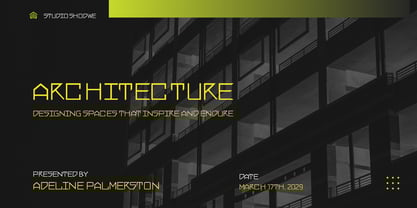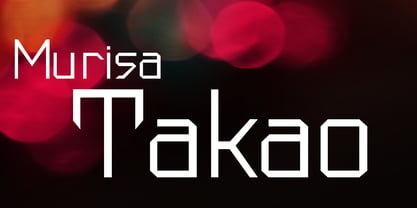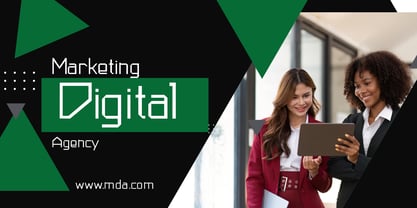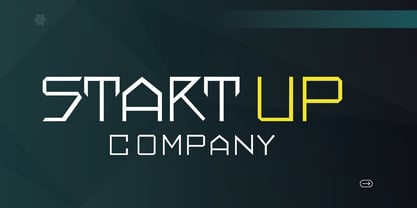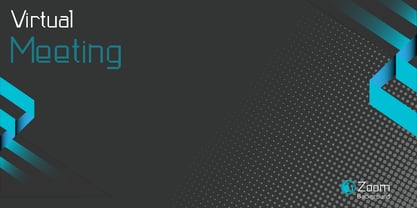
Murisa Takao
The Murisa Takao Font Family was designed by Lili Sadili and published by Murisa Studio. Murisa Takao contains 2 styles and family package options. More about this family
🔷 Murisa Takao — Where Geometry Meets Power Step into the future with Murisa Takao, a bold typographic statement forged from precision, symmetry, and unapologetic style. This geometric display font is not just a tool — it’s a visual force designed to dominate digital landscapes, sci-fi universes, and avant-garde branding. ✨ Why Murisa Takao stands apart: Architectural Elegance: Each character is sculpted with sharp angles and clean lines, echoing the sophistication of modern architecture and industrial design. Multilingual Mastery: Fully equipped to support Eastern European languages, Murisa Takao speaks to a global audience without compromising its edge. Visual Impact: Whether on posters, packaging, or digital interfaces, this font commands attention and elevates any composition with futuristic flair. Creative Versatility: Ideal for tech startups, gaming titles, fashion editorials, and luxury branding — Murisa Takao adapts while staying iconic. 💡 Use it to: Build immersive worlds, craft unforgettable logos, or inject high-end energy into your next campaign